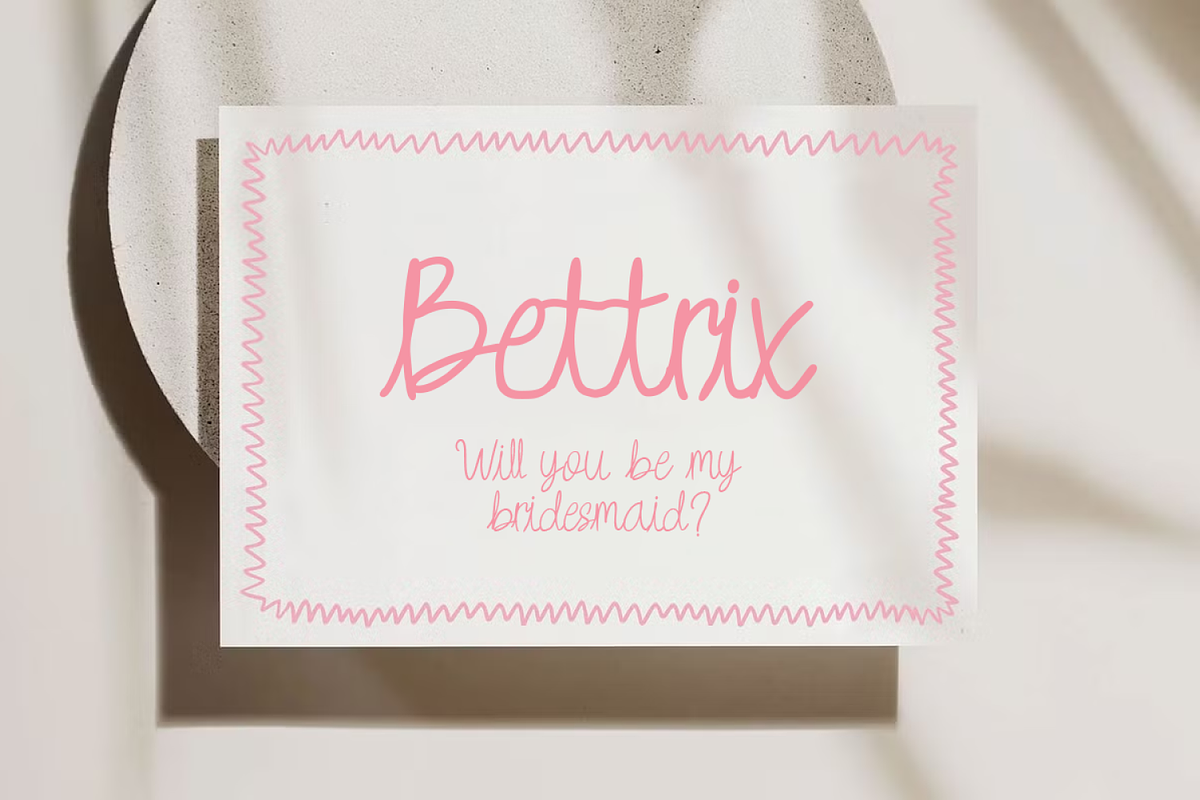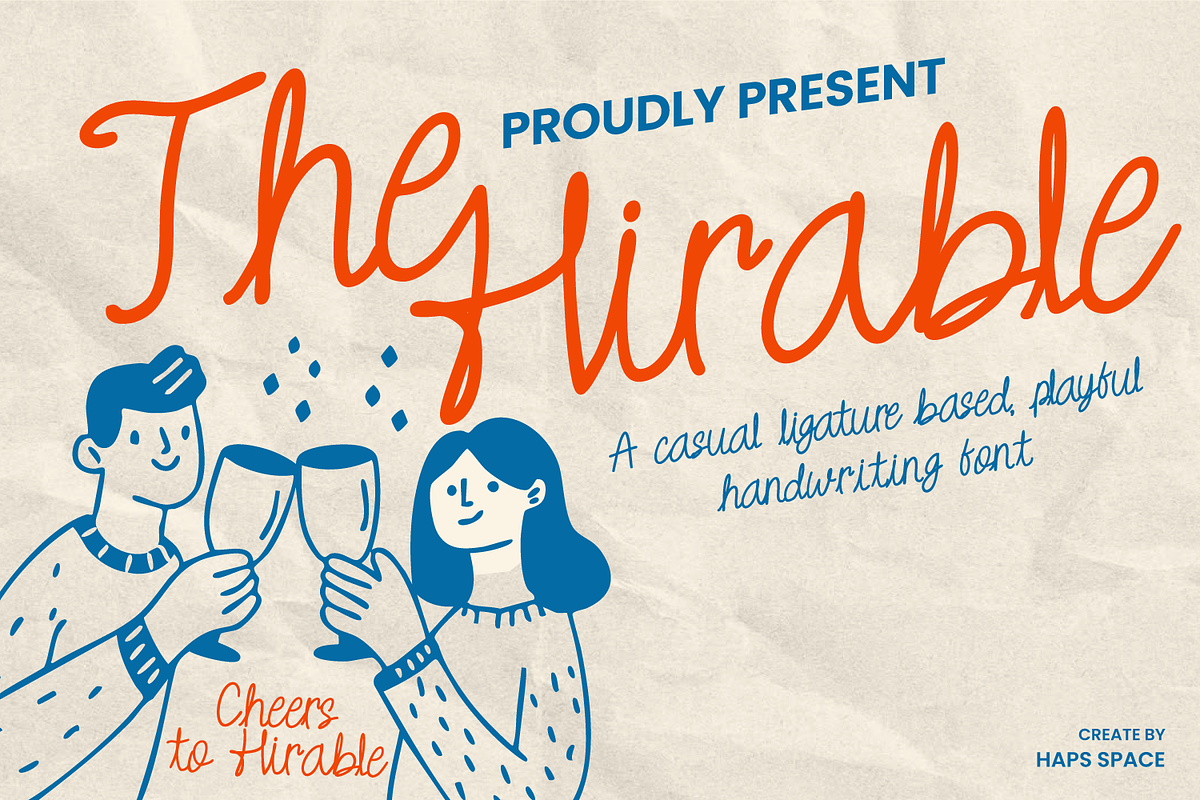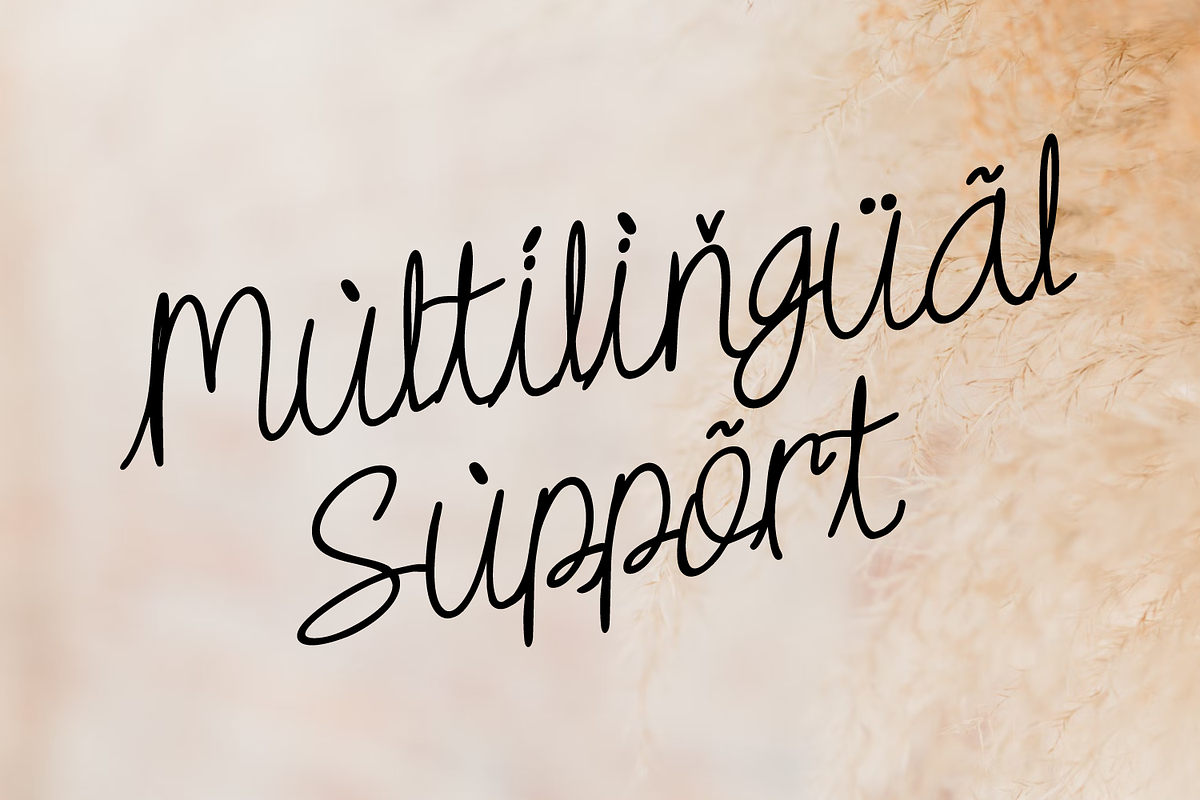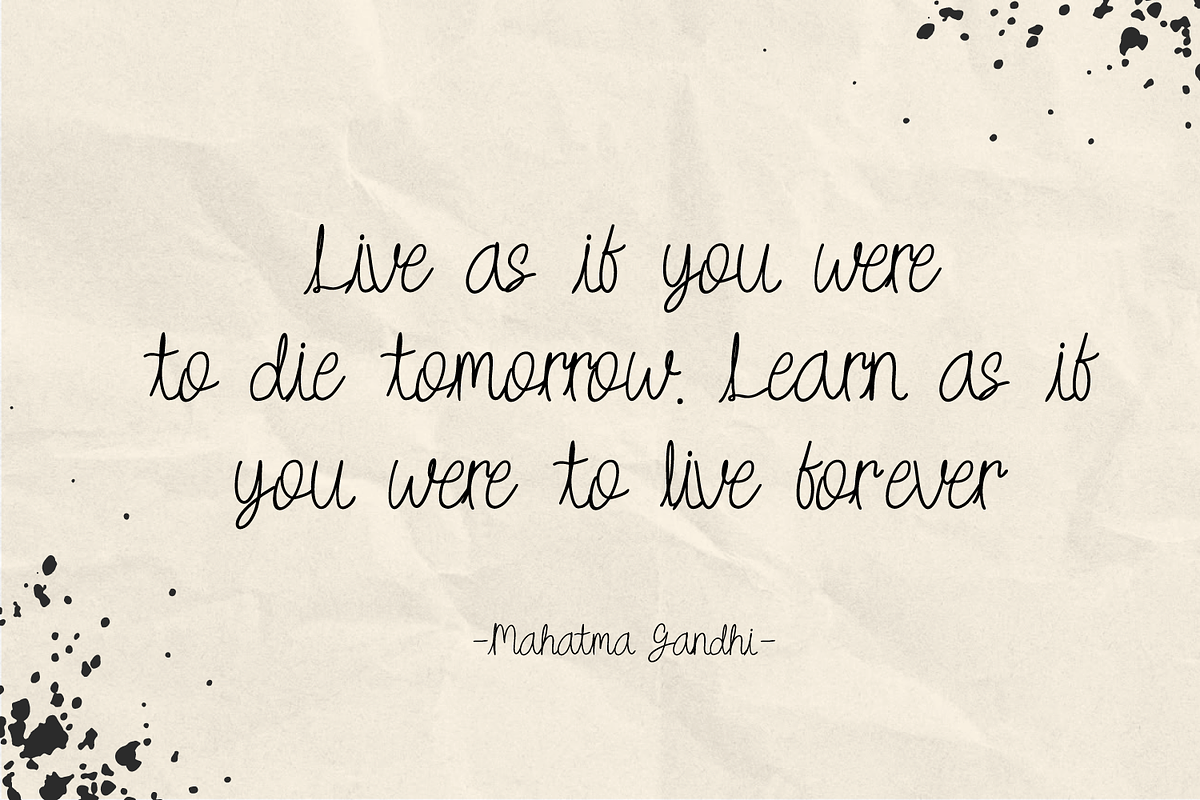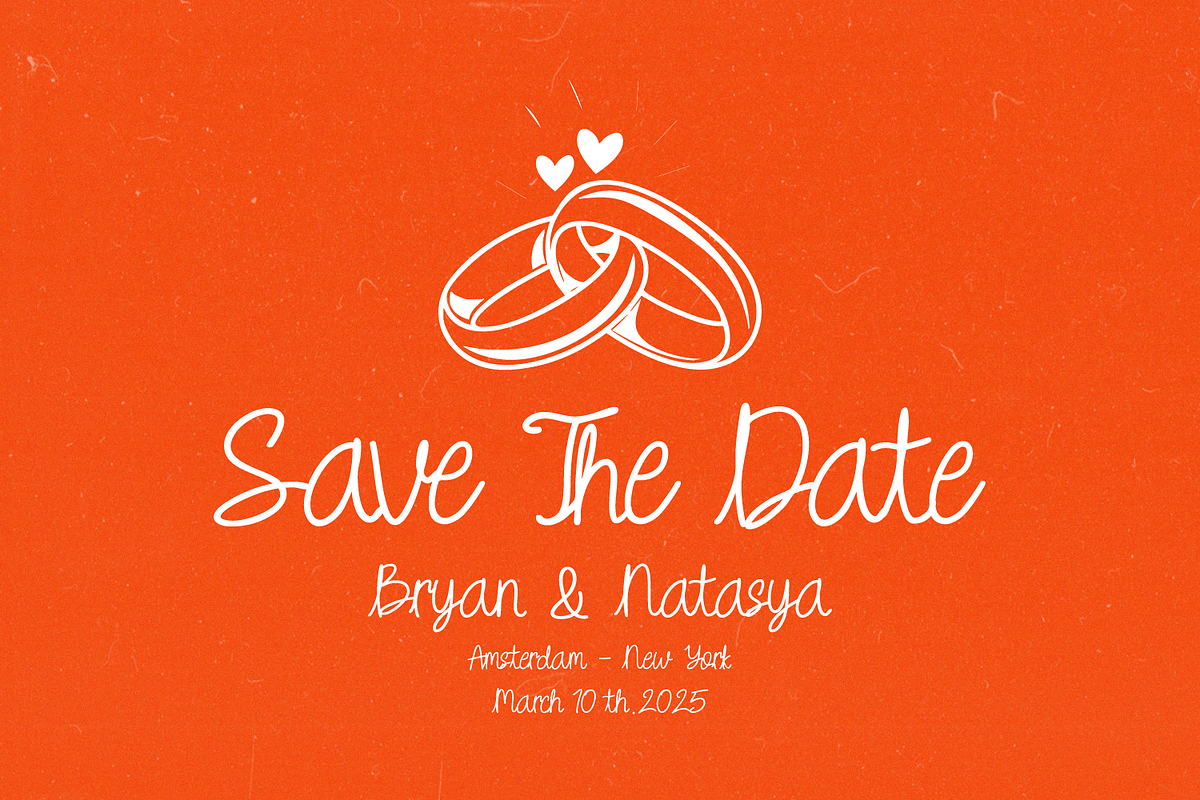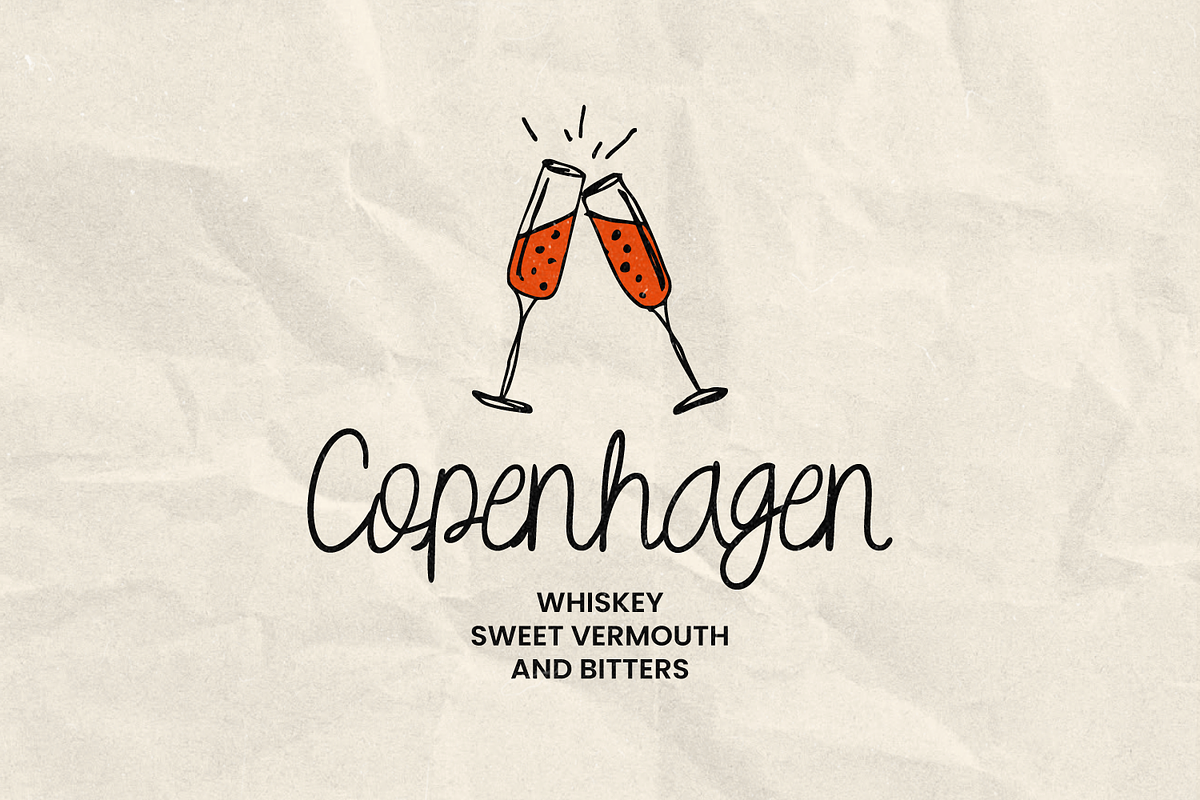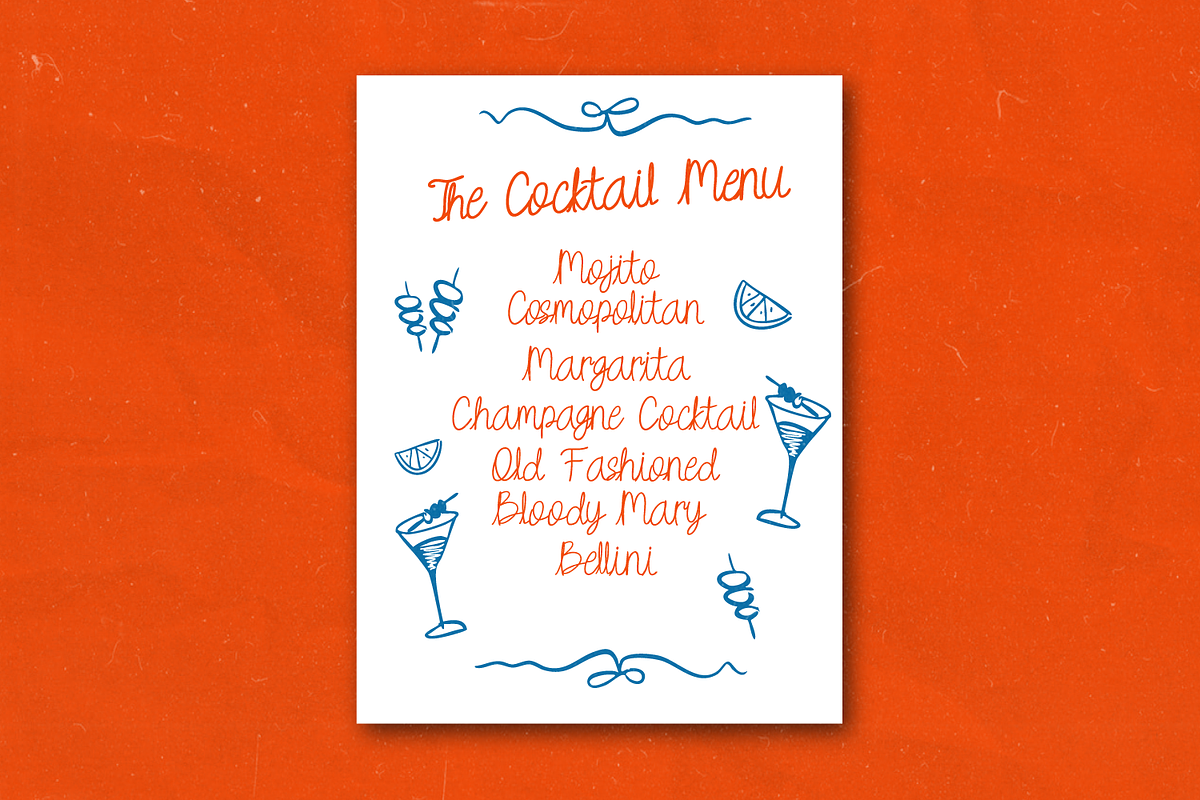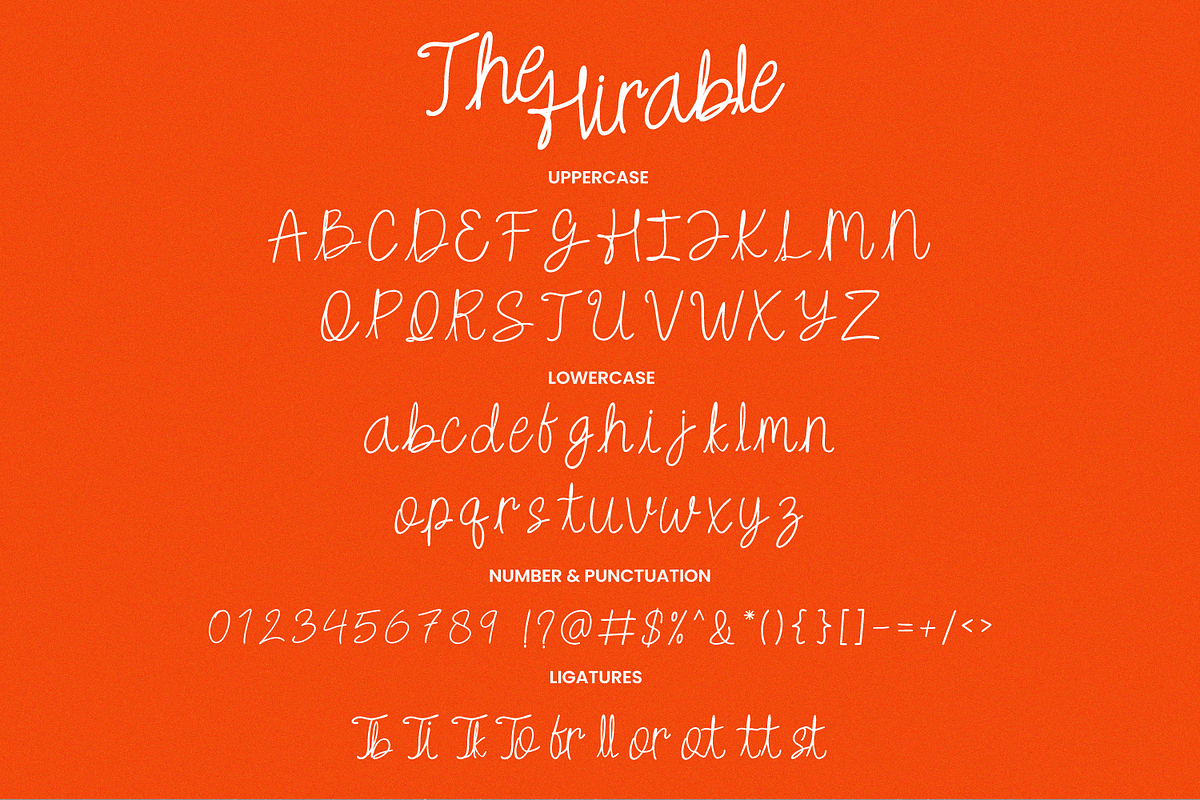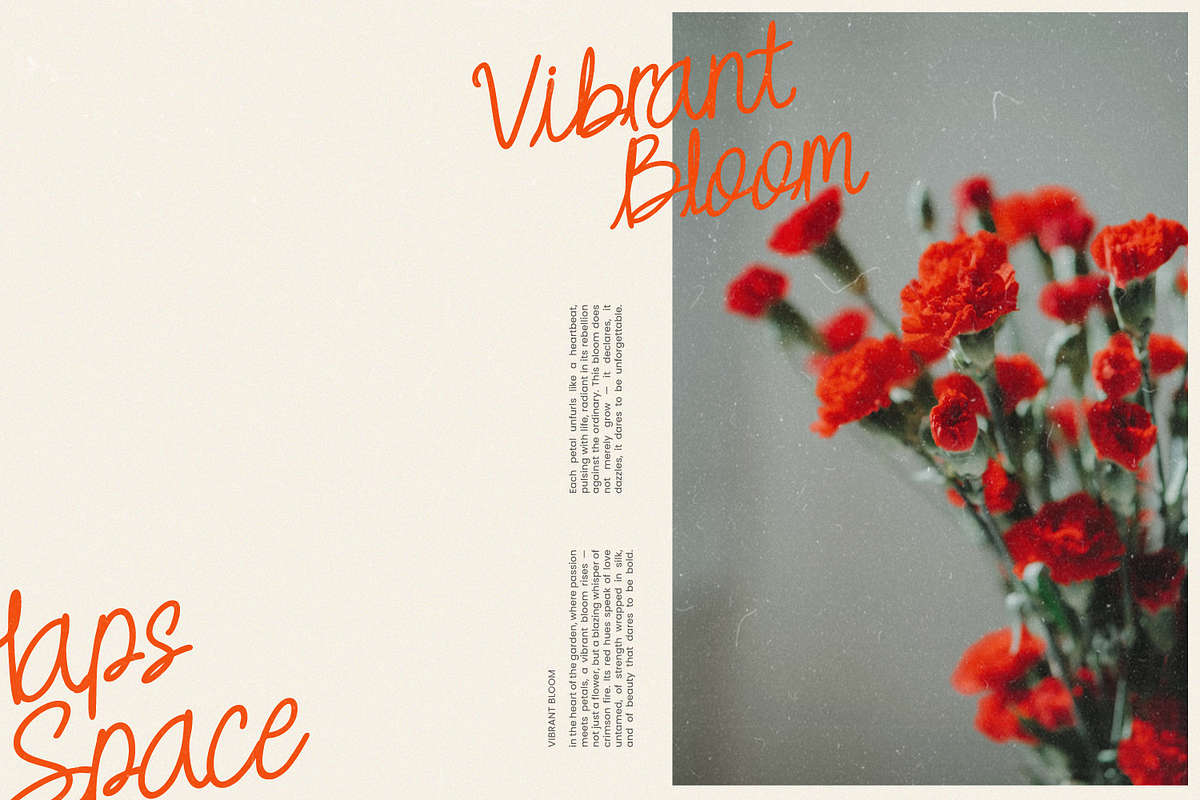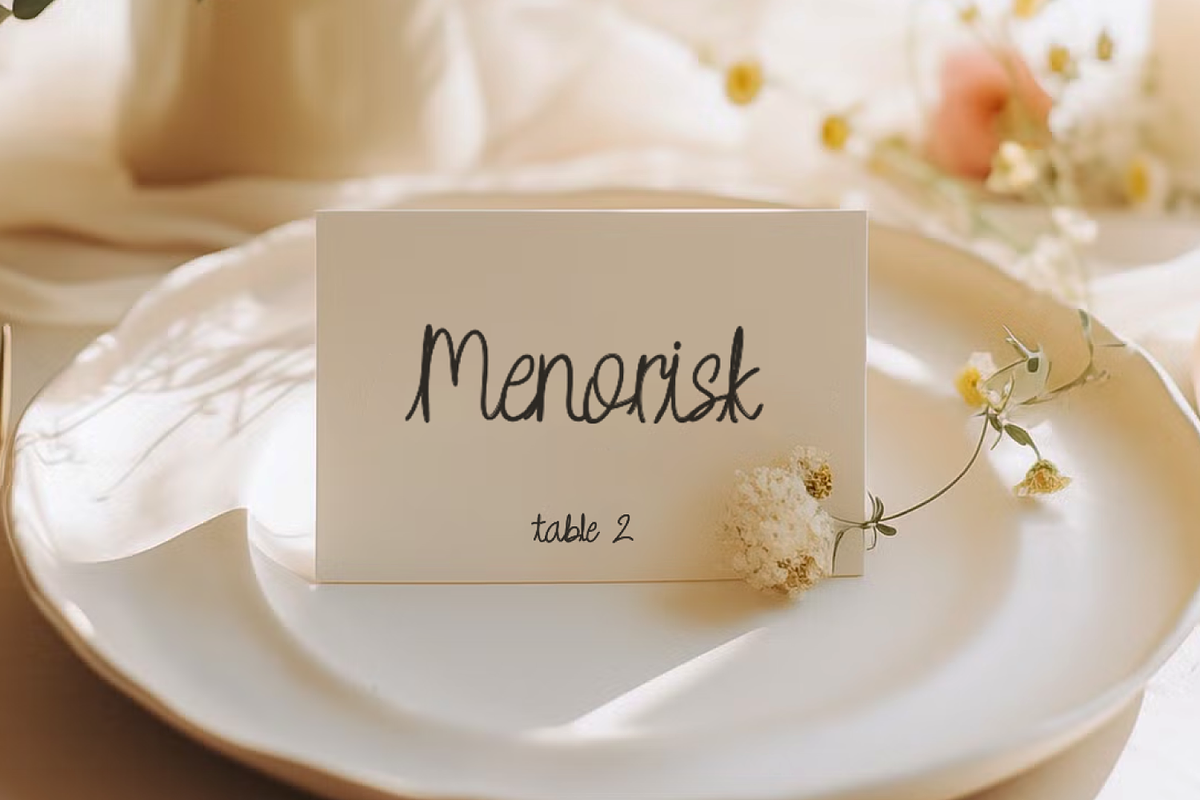
The Hirable – Playful Handwriting
The Hirable is a casual, ligature-based handwriting font that brings a lighthearted, human touch to your designs. Featuring a natural handwritten flow and playful letterforms, this font is perfect for branding, packaging, greeting cards, social media posts, and more.
Whether you're designing wedding invitations or playful logos, The Hirable offers a charming, friendly vibe that feels personal and inviting. It's equipped with unique ligatures that make your text look hand-drawn and authentic.
- Uppercase & Lowercase Letters
- Casual Ligatures
- Handwritten logos
- Greeting cards & wedding invites
- Social media graphics
- Quote typography
- Children’s book covers
- Product packaging
- Casual branding projects